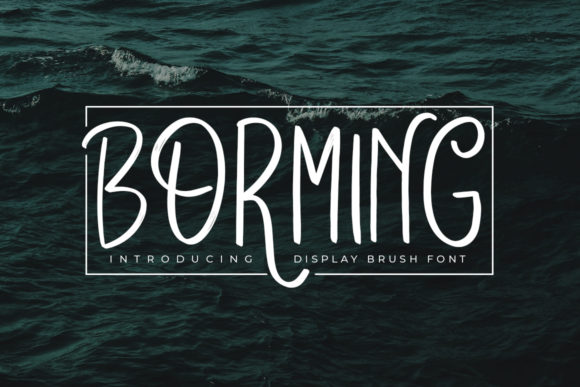
Dive into the world of typography with the captivating Borming Font, a display typeface that exudes elegance and sophistication. Its tall, slender characters dance across the page, leaving a trail of visual delight in their wake.
Crafted by the skilled hands of Maulana Creative, Borming is not just a font; it's an artistic masterpiece that empowers you to transform your digital creations into captivating works of art. Its versatility knows no bounds, effortlessly adapting to a vast array of projects, from eye-catching headlines to unforgettable logos.
Imagine your website adorned with Borming's graceful lines, where every word carries the weight of authority and the allure of timeless beauty. Let your school website soar to new heights with Borming, where every announcement, lesson plan, and assignment becomes a testament to your dedication and passion.
With Borming, the possibilities are limitless. Unleash your creativity and watch as your words take flight, enchanting your audience with a symphony of style and substance. Experience the transformative power of Borming Font today and elevate your digital presence to new heights of brilliance.